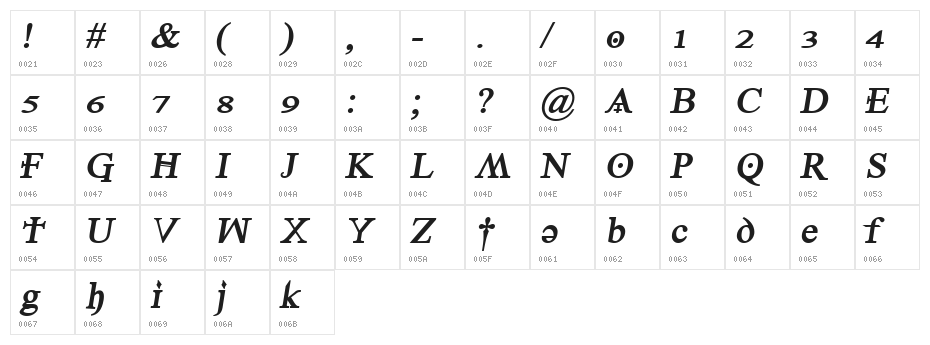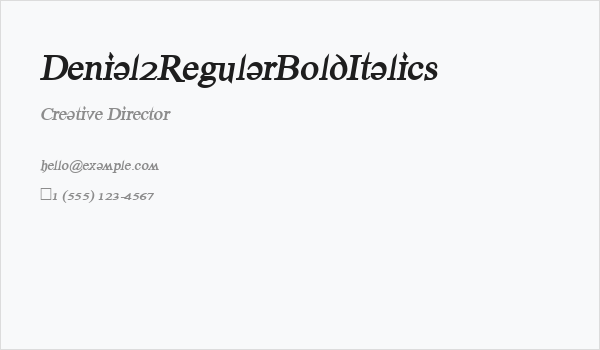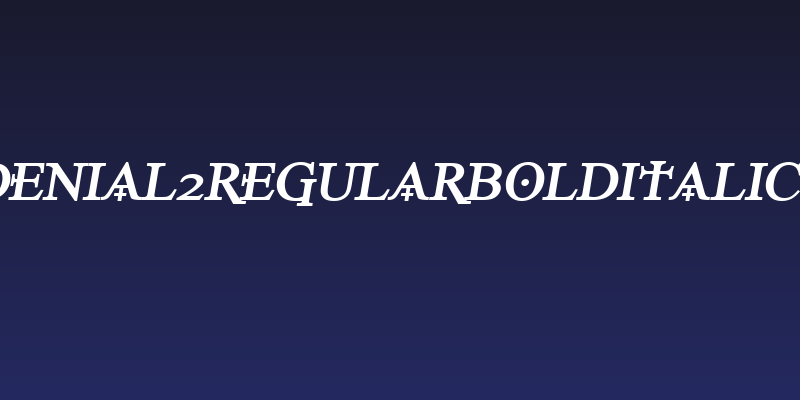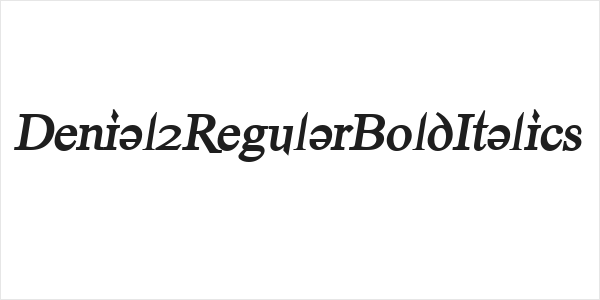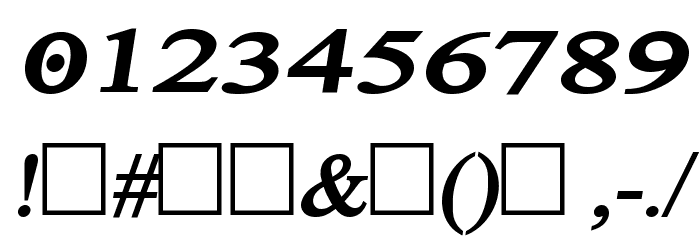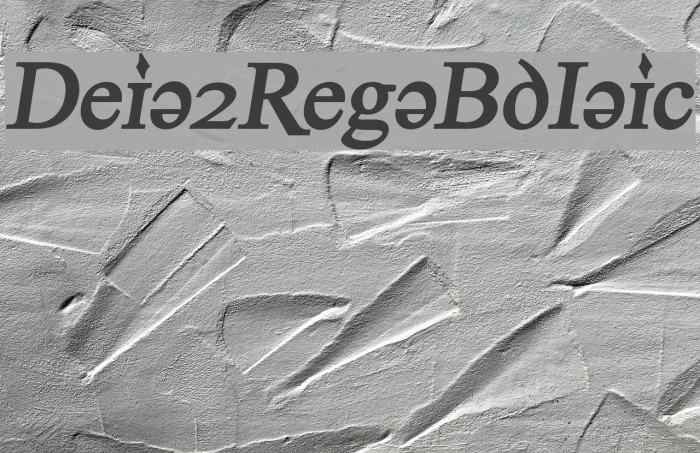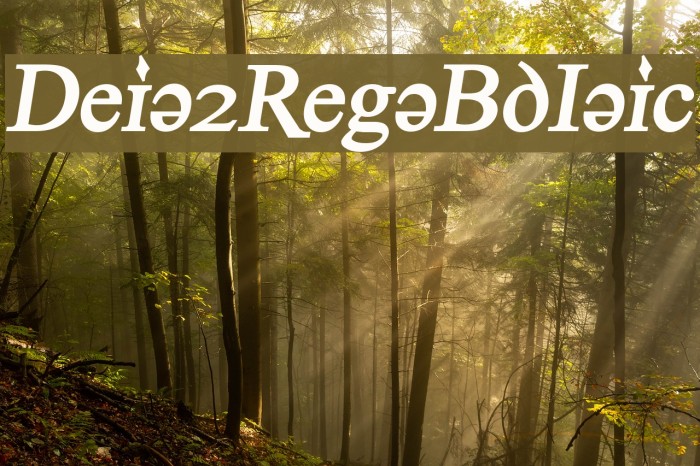
Denial2RegularBoldItalics Font
Denial2RegularBoldItalics Description
This font exhibits a bold and italicized style, characterized by its strong, dynamic strokes and a slight slant that adds a sense of movement and elegance. The uppercase letters are robust and commanding, with distinctive serifs that enhance their presence. The lowercase letters maintain a consistent style, with smooth curves and a harmonious flow. The numerals are clear and bold, ensuring readability. Special characters are well-integrated, maintaining the font's cohesive aesthetic. This font's overall design is both classic and modern, making it versatile for various applications.
| Overall Style | Classic |
| Use Case | Headlines, Logos, Editorial Design |
| Proposed Projects | Ideal for branding, editorial design, book covers, and elegant invitations. |